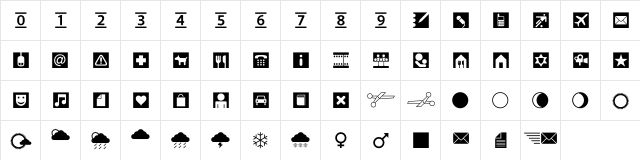
Leitura Symbols Dingbats
| Foundry | Dino dos Santos _DSType |
| Designer | Dino dos Santos |
Design Context for Leitura Symbols Typeface
Leitura Symbols offers clean, dependable letterforms without strong stylistic allegiance, making it a practical choice for designers who need flexibility.